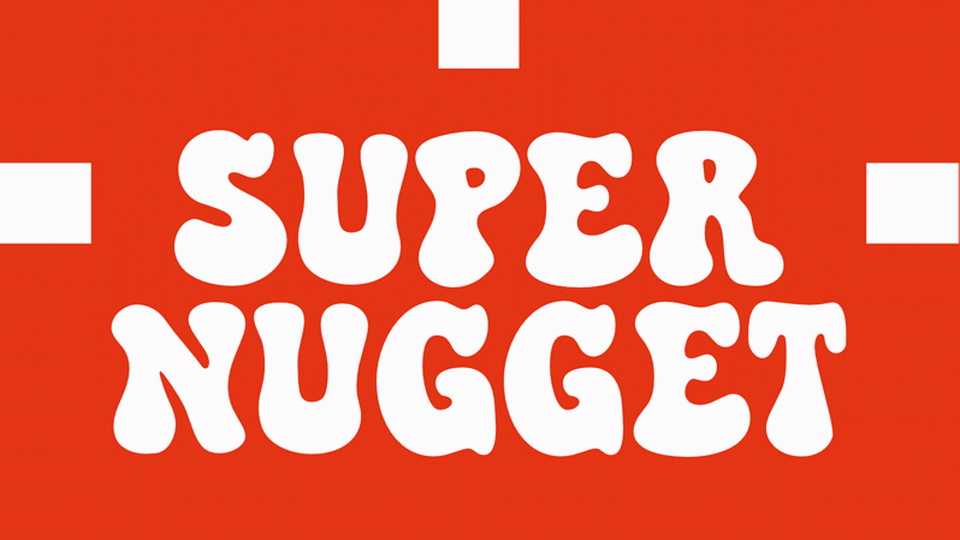
Download Super Nugget font, a bold display typeface packed with playful energy and retro-inspired charm. Its chunky, rounded letterforms and soft organic curves create a fun and approachable personality.